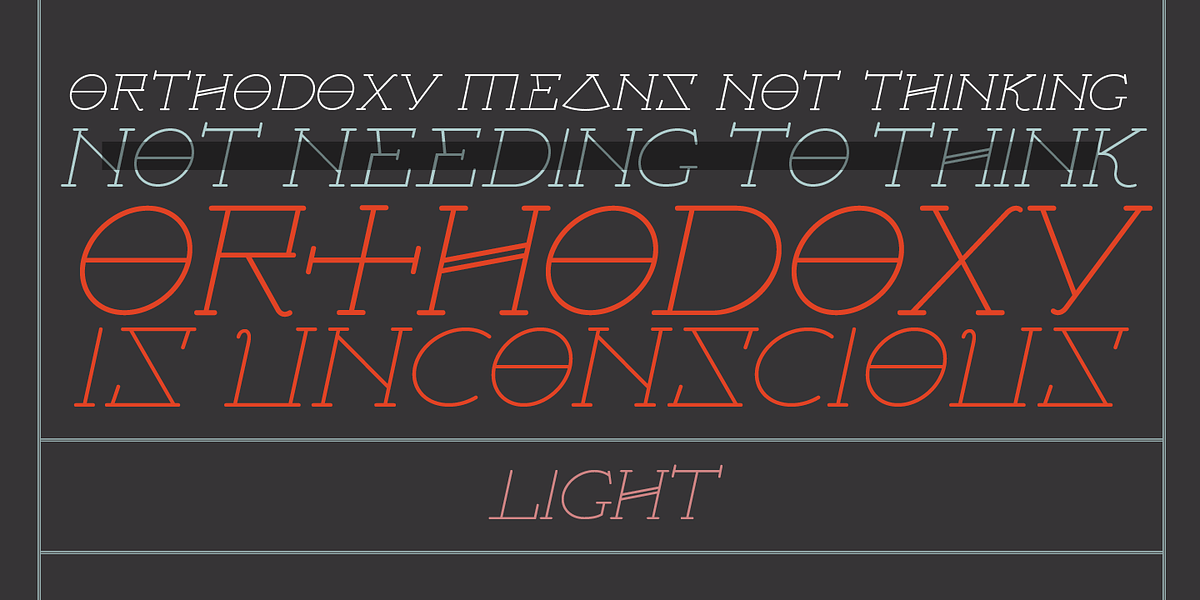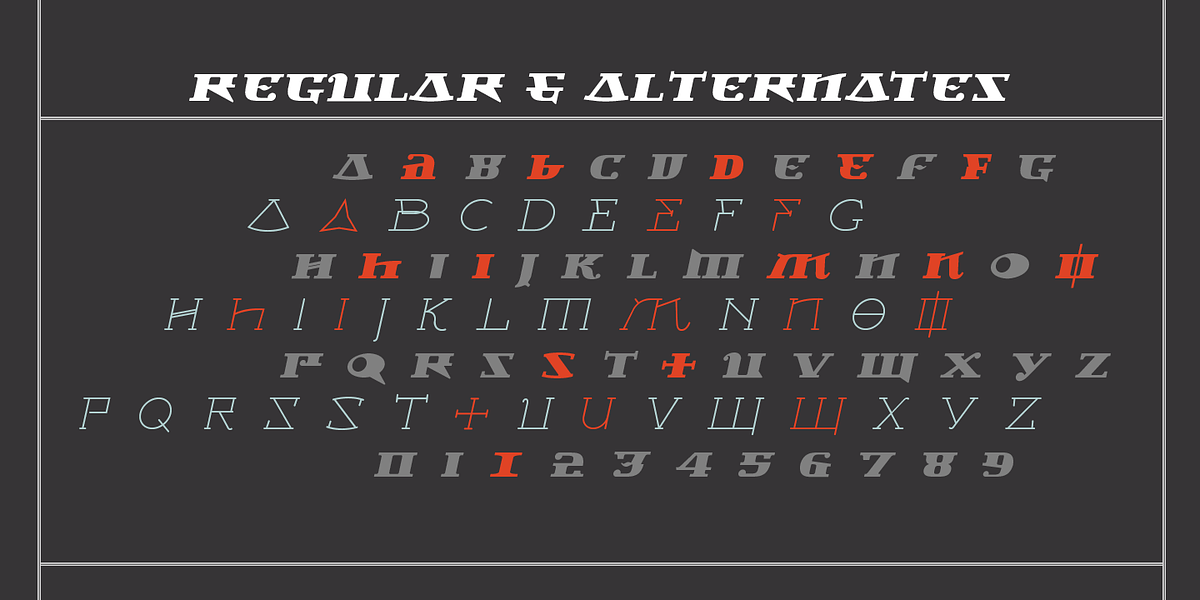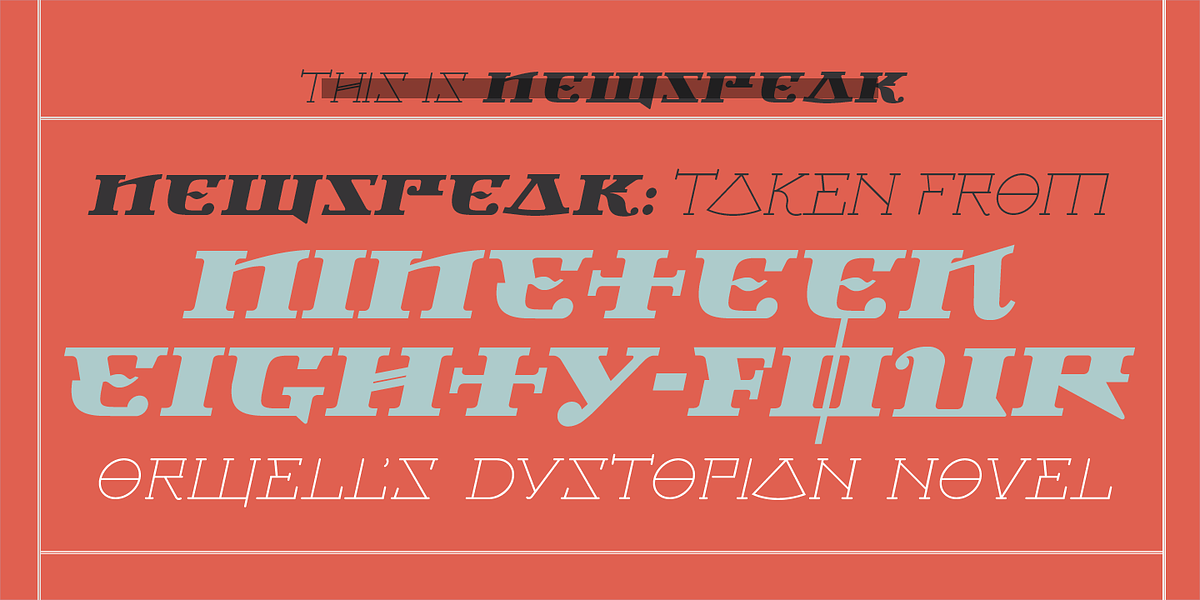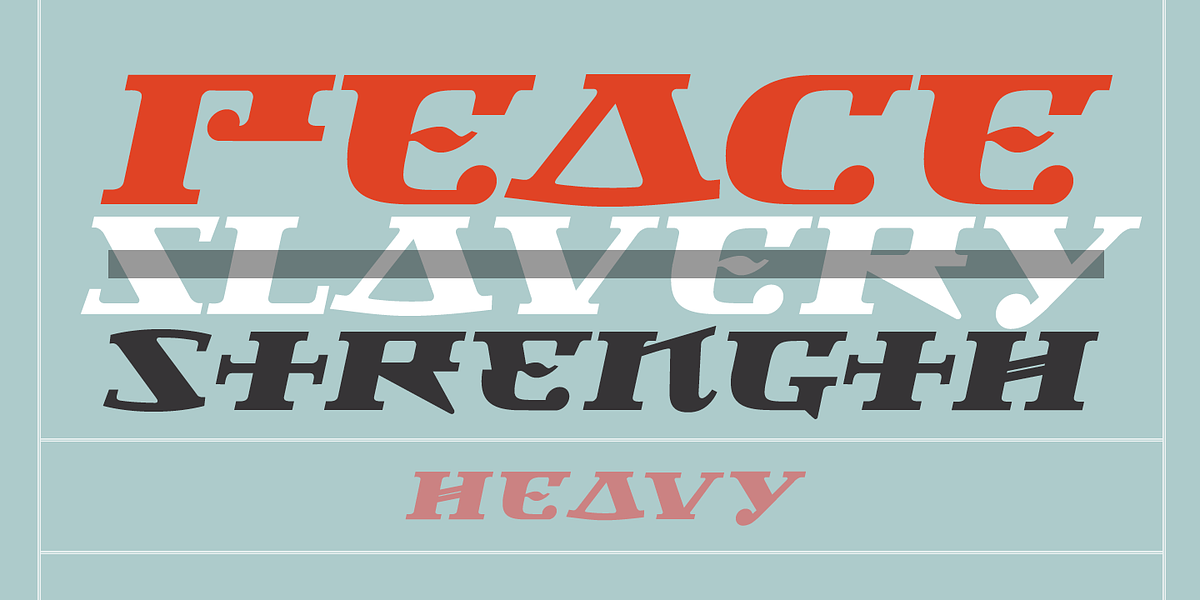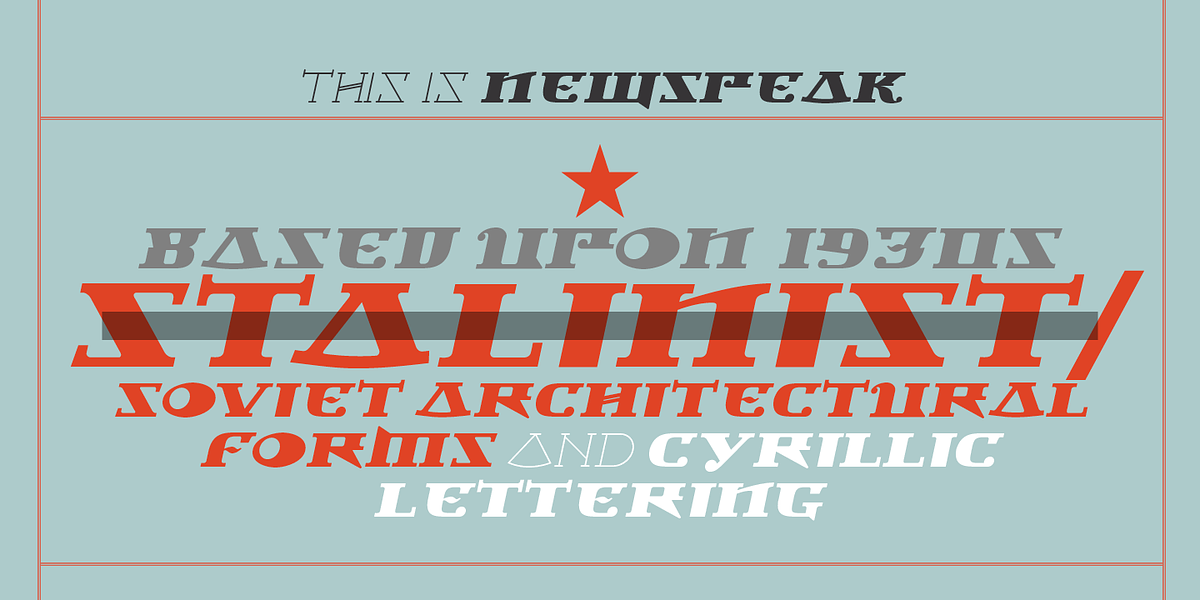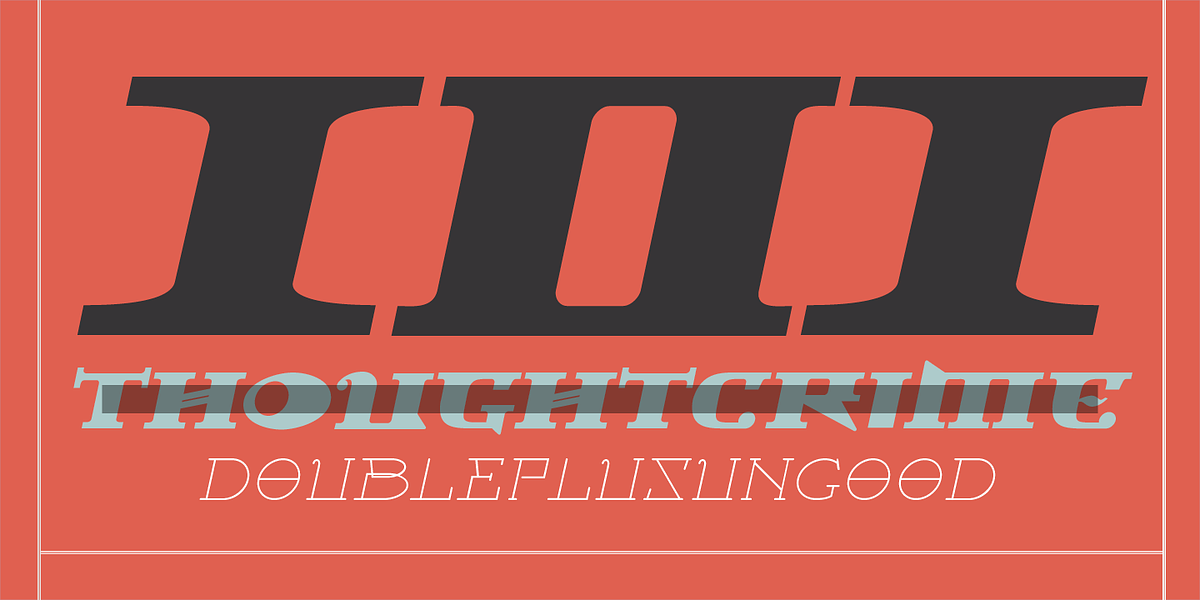
Newspeak
Newspeak is a display typeface inspired by the imposing forms of Stalinist architecture prevalent in the 1930s-1950s. The font draws upon both the geometric boldness of these structures and the unique character shapes found in Cyrillic letterforms. While acknowledging the controversial nature of its inspiration, Newspeak aims to capture a sense of historical intrigue and the paradoxical beauty often associated with totalitarian aesthetics.